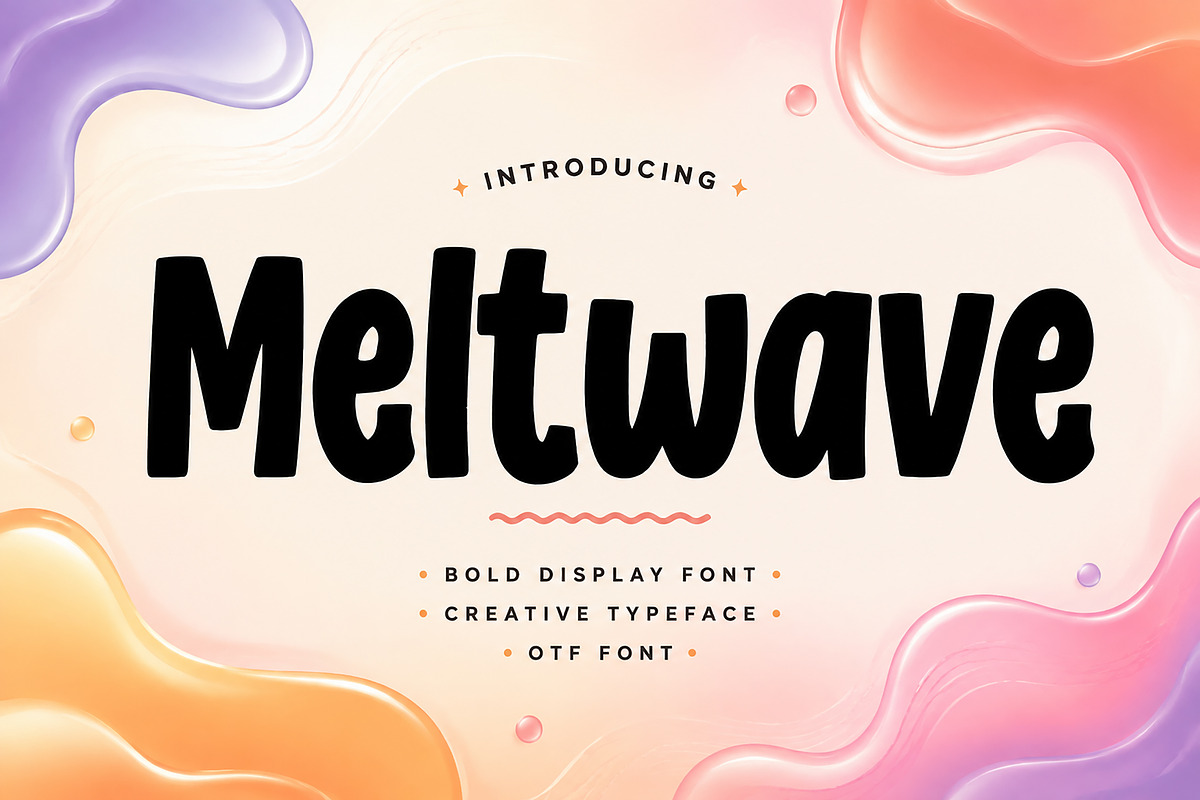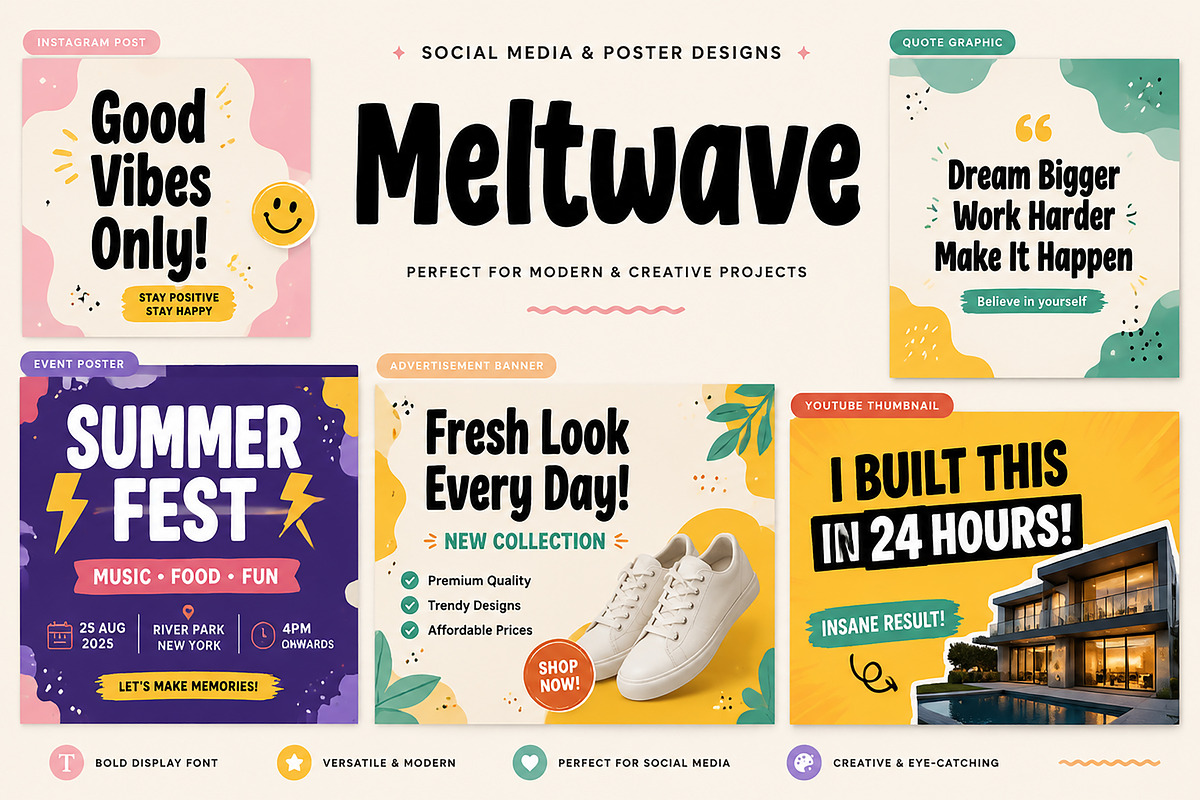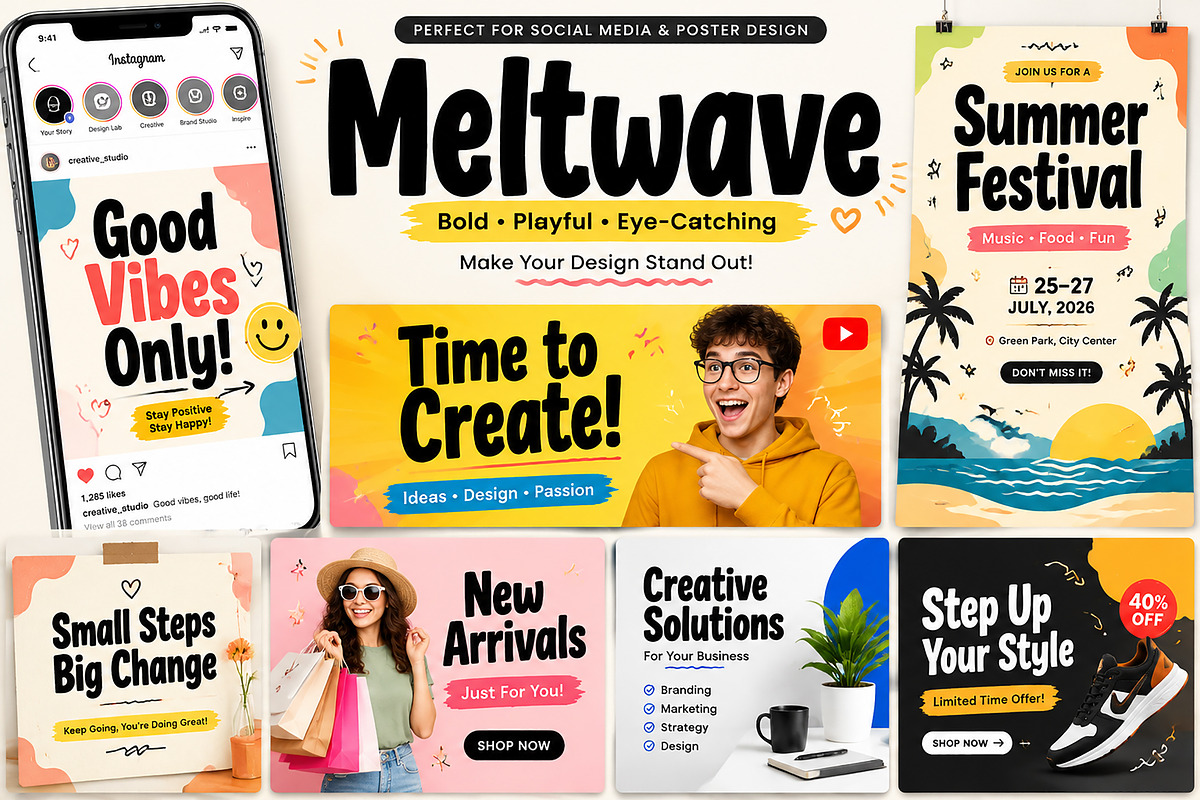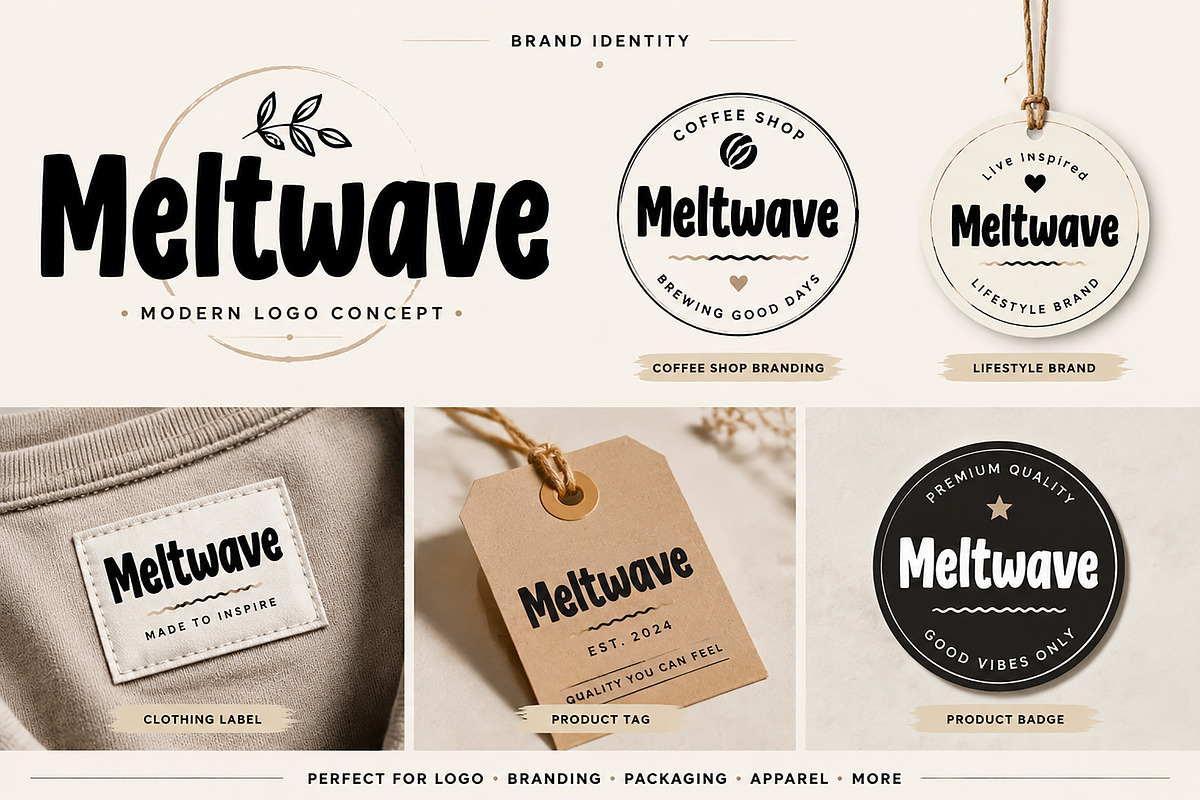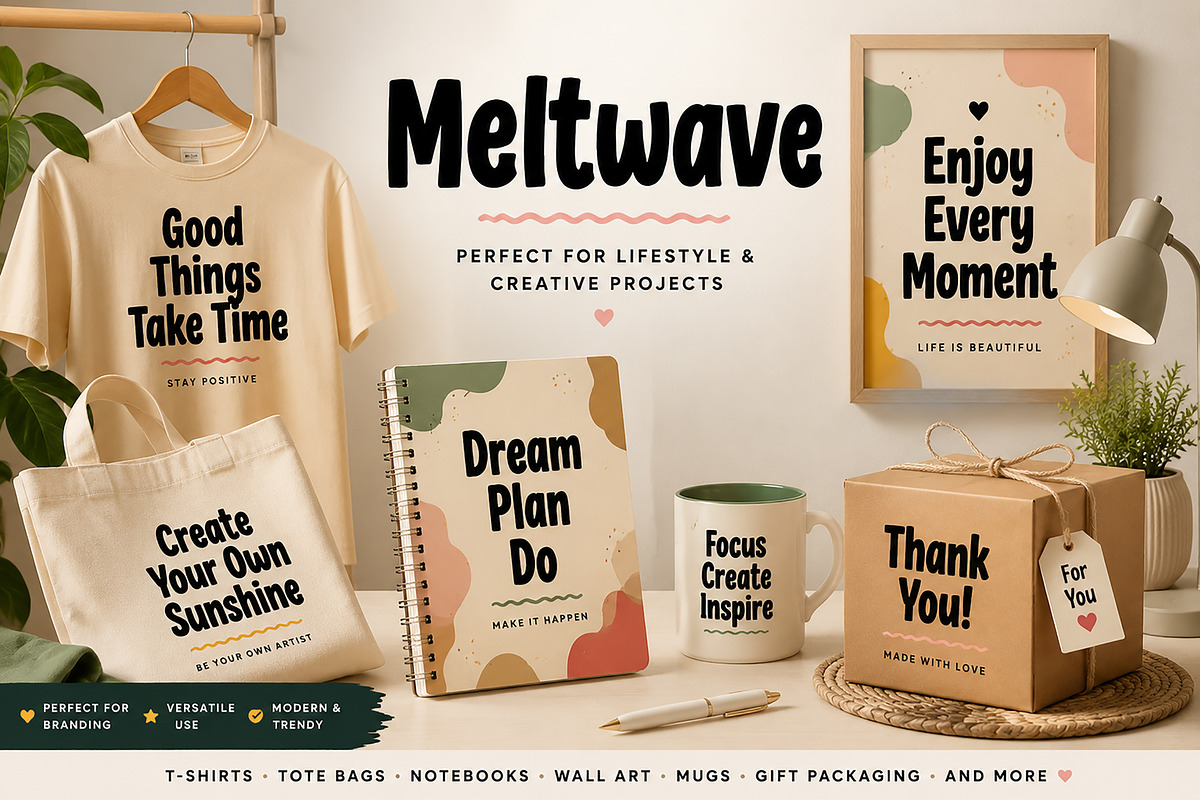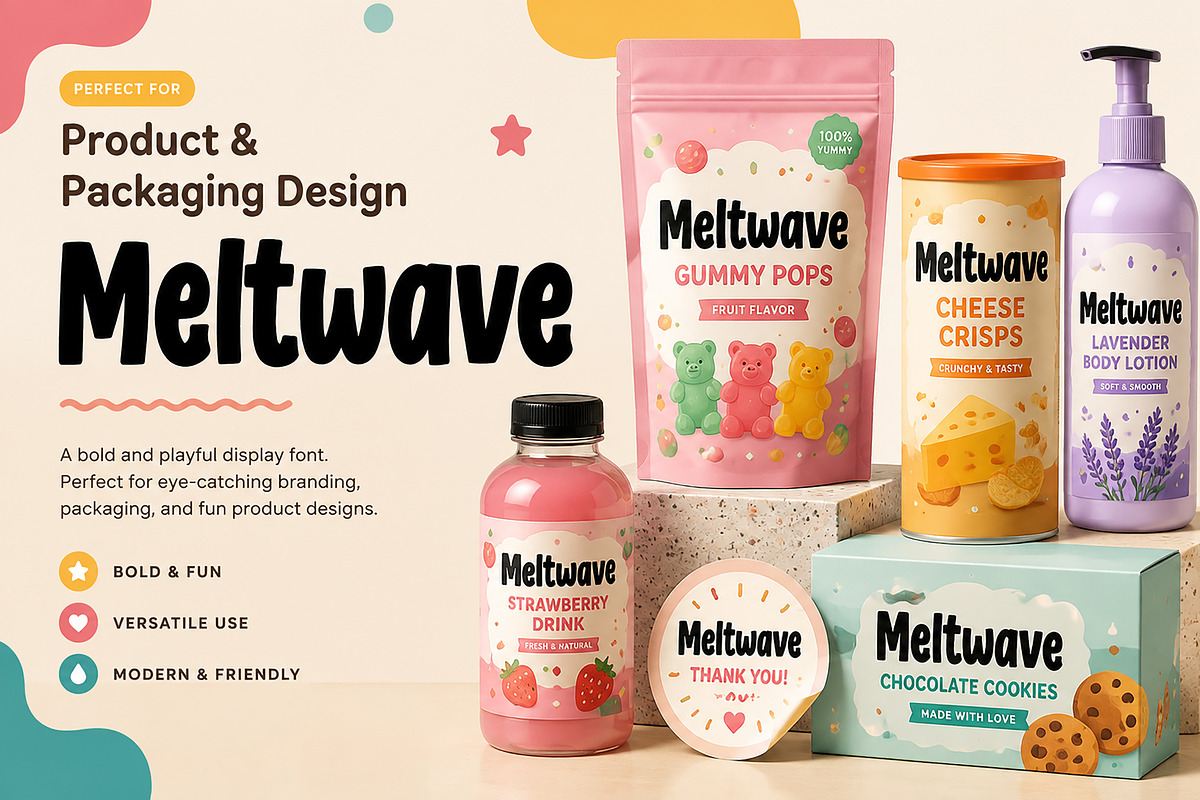
Meltwave
Meltwave - Bold Playful Display Font
Introducing Meltwave, a bold and playful display font designed to bring a fun, modern, and creative personality to your designs.
With its thick rounded shapes, smooth curves, and friendly character, Meltwave is perfect for eye-catching branding, packaging, social media graphics, posters, merchandise, and creative projects that need a strong visual impact.
This versatile display typeface works beautifully for both digital and print designs, helping your projects stand out with a unique and memorable style.
Whether you are creating a brand identity, product packaging, apparel design, advertising artwork, YouTube thumbnails, or lifestyle graphics, Meltwave adds a fresh and energetic feel to every composition.
• Logo & Brand Identity
• Packaging Design
• Product Labels
• Candy & Food Branding
• Clothing & Merchandise
• Social Media Posts
• Posters & Flyers
• YouTube Thumbnail Designs
• Stickers & Badge Designs
• Creative Advertising
✓ Bold rounded display style
✓ Fun and friendly personality
✓ Perfect for modern branding projects
✓ Great readability at large sizes
Bring your creative ideas to life with Meltwave, a playful display font made for designers who want their projects to feel bold, modern, and unforgettable.